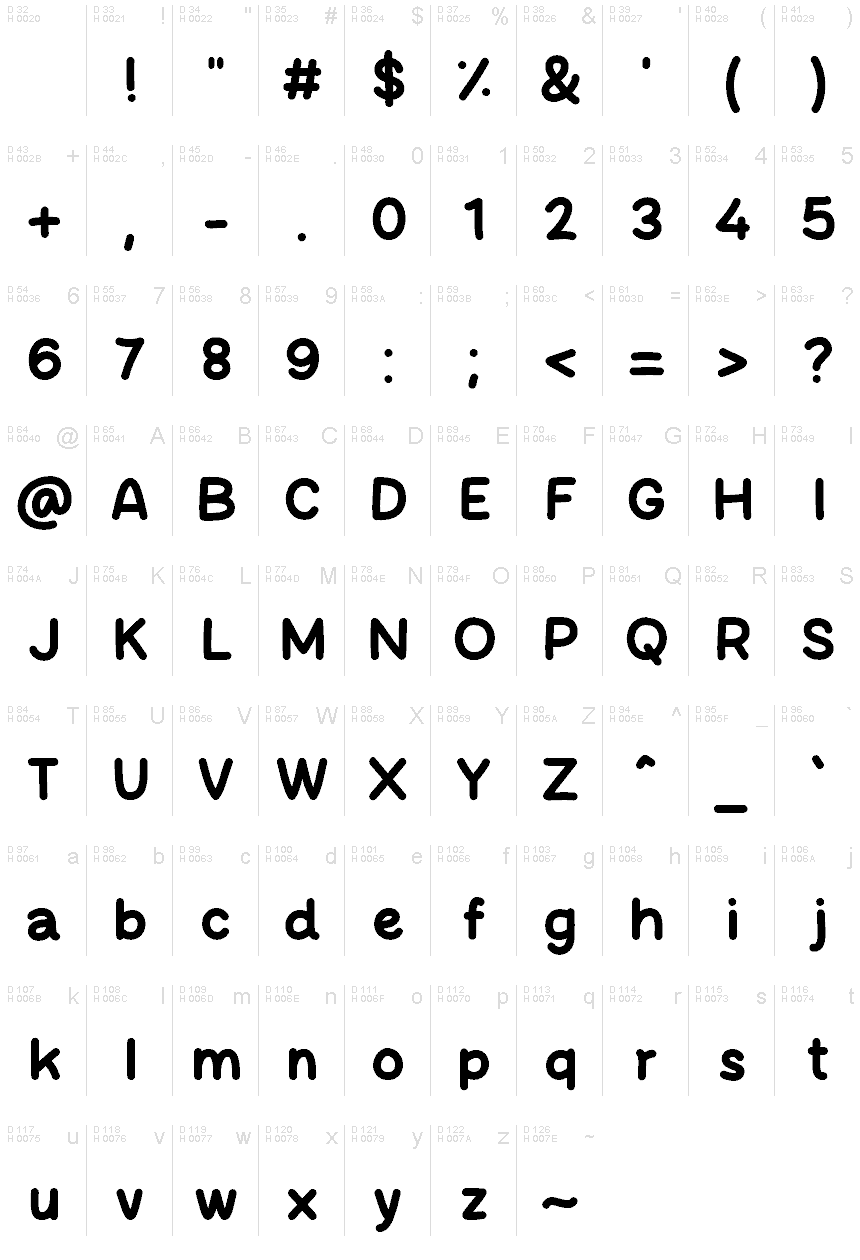
Power Calm
Power Calm font is a free handwritten font by MJType that radiates youthful energy with a modern style and smooth structure. This cohesive font uses rounded characters for an approachable and friendly look that is equally impressive, whether used in long or short texts.
Fit the charming display of Power Calm into notebooks covers, invitations, illustrations, greeting cards, posters, logos and branding designs or add it to apps and web designs as well.